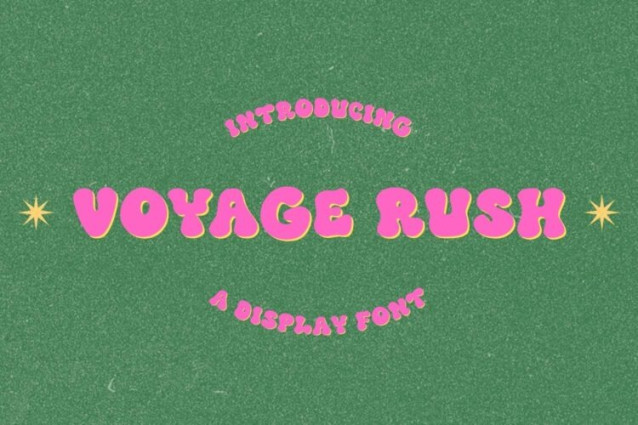
Voyage Rush Font
Voyage Rush Font is a simple and modern display font suitable for quotes, logos, headings, titles, and many more. Use it on any of your creative projects, and your designs will become outstanding!